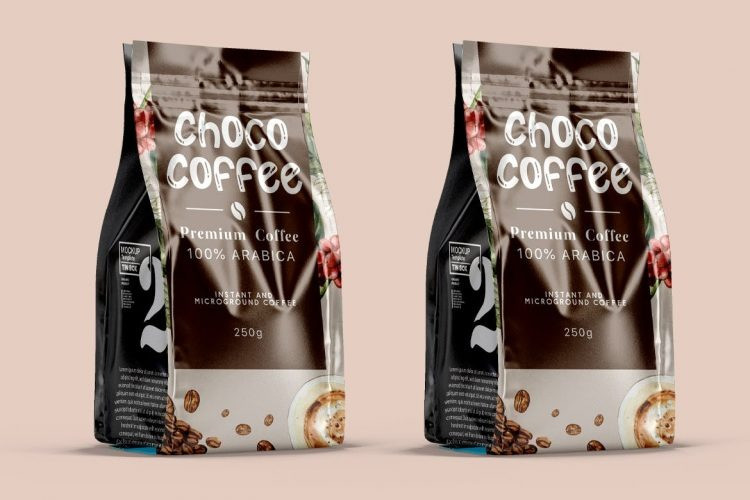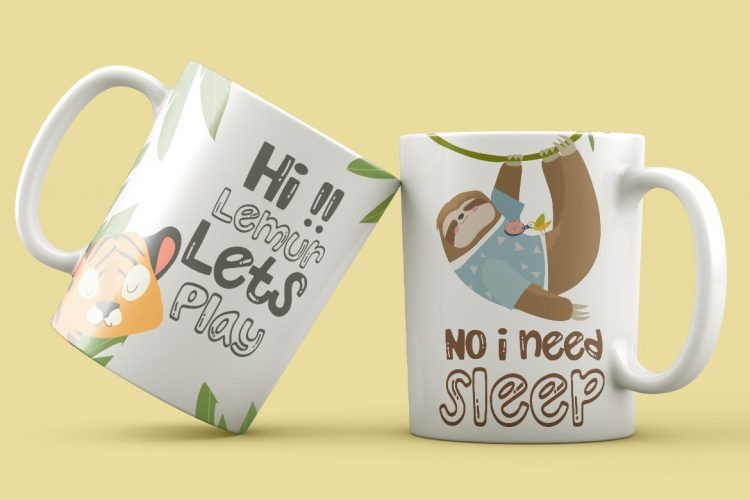
KOALA NAMU Display Font
Hello, this time we want to introduce a new product. The Koala Namu is a funny and cute display font, Koala Namu is the perfect font for adding a cute and playful touch to your designs.